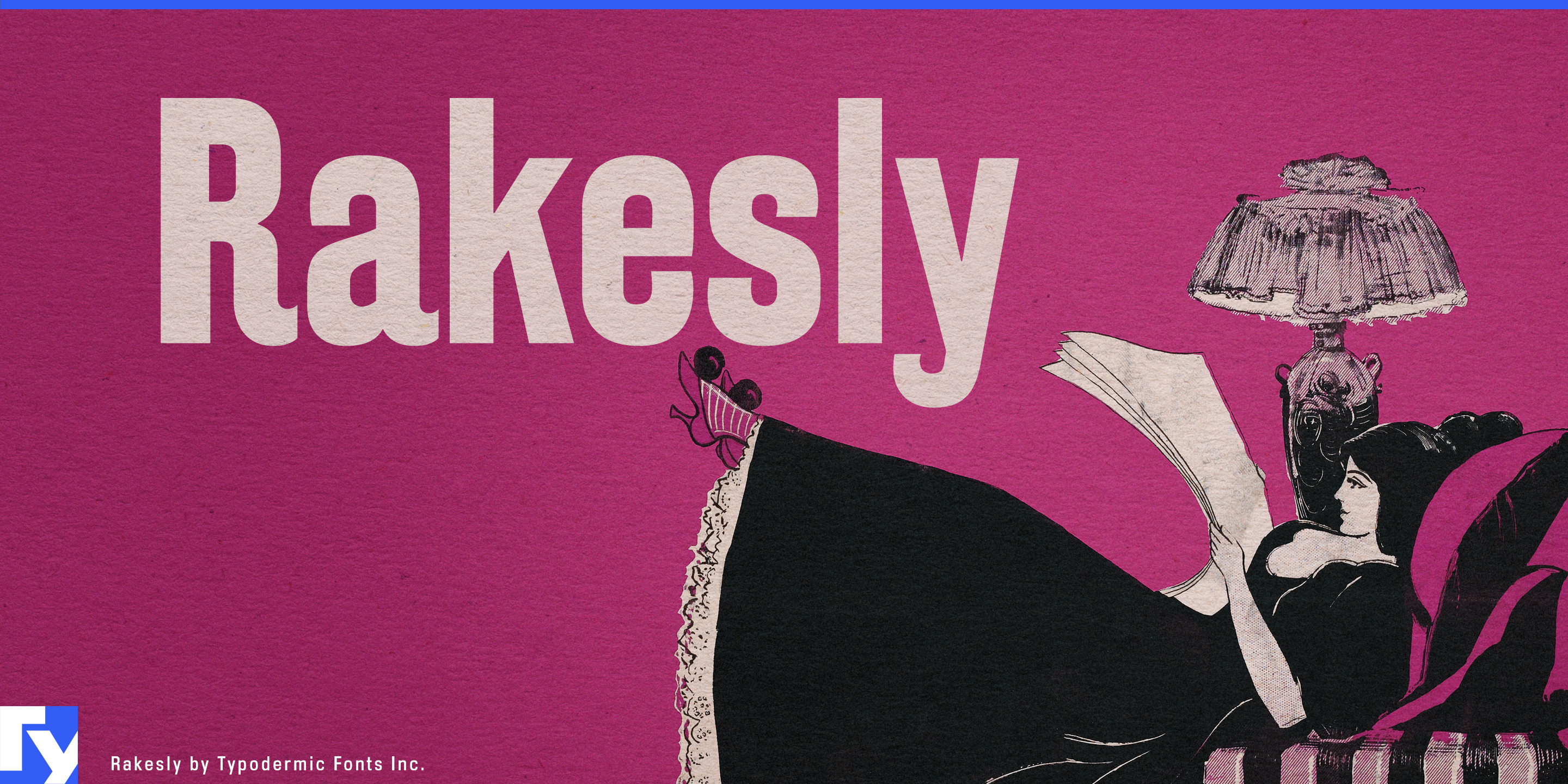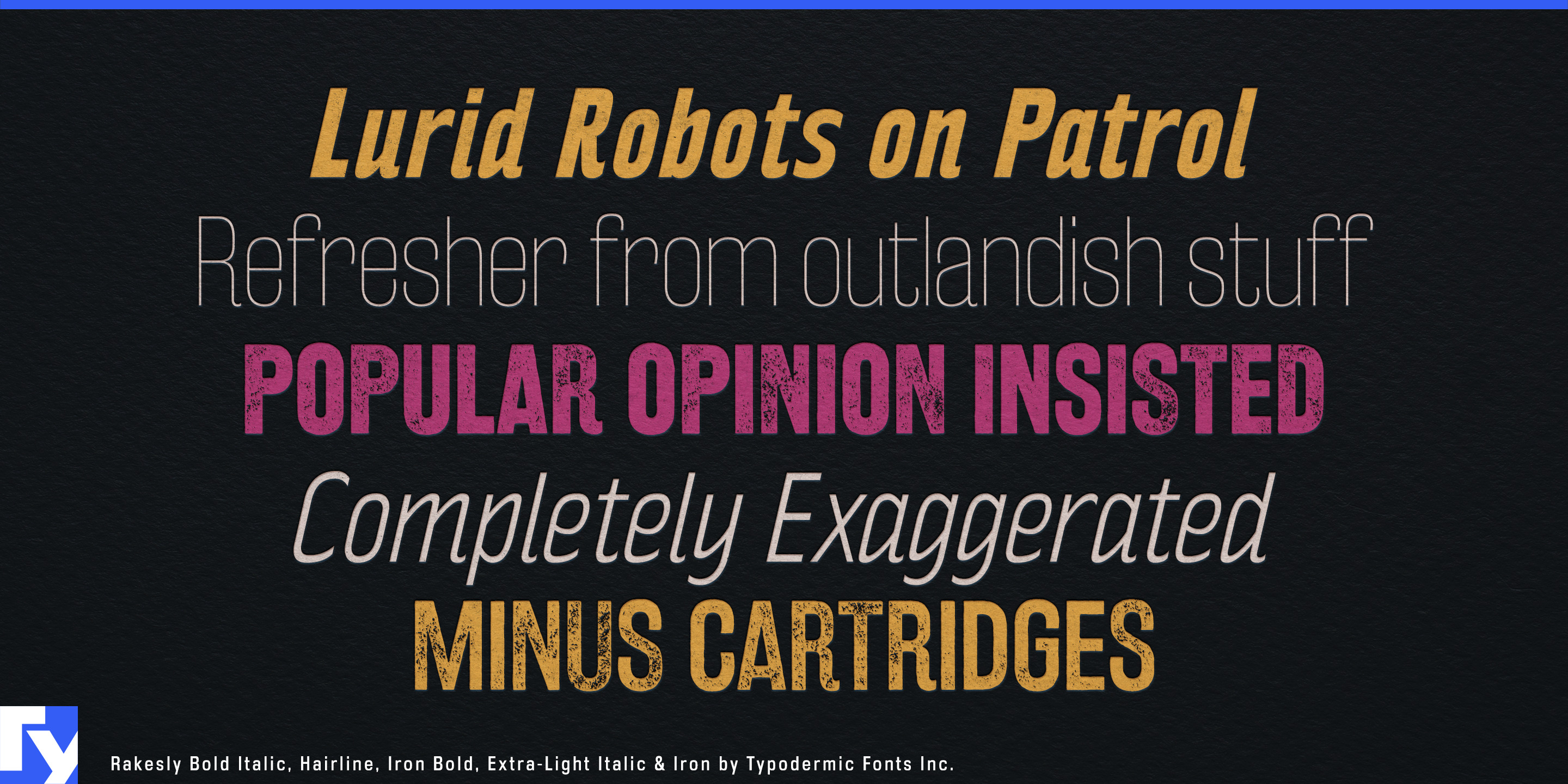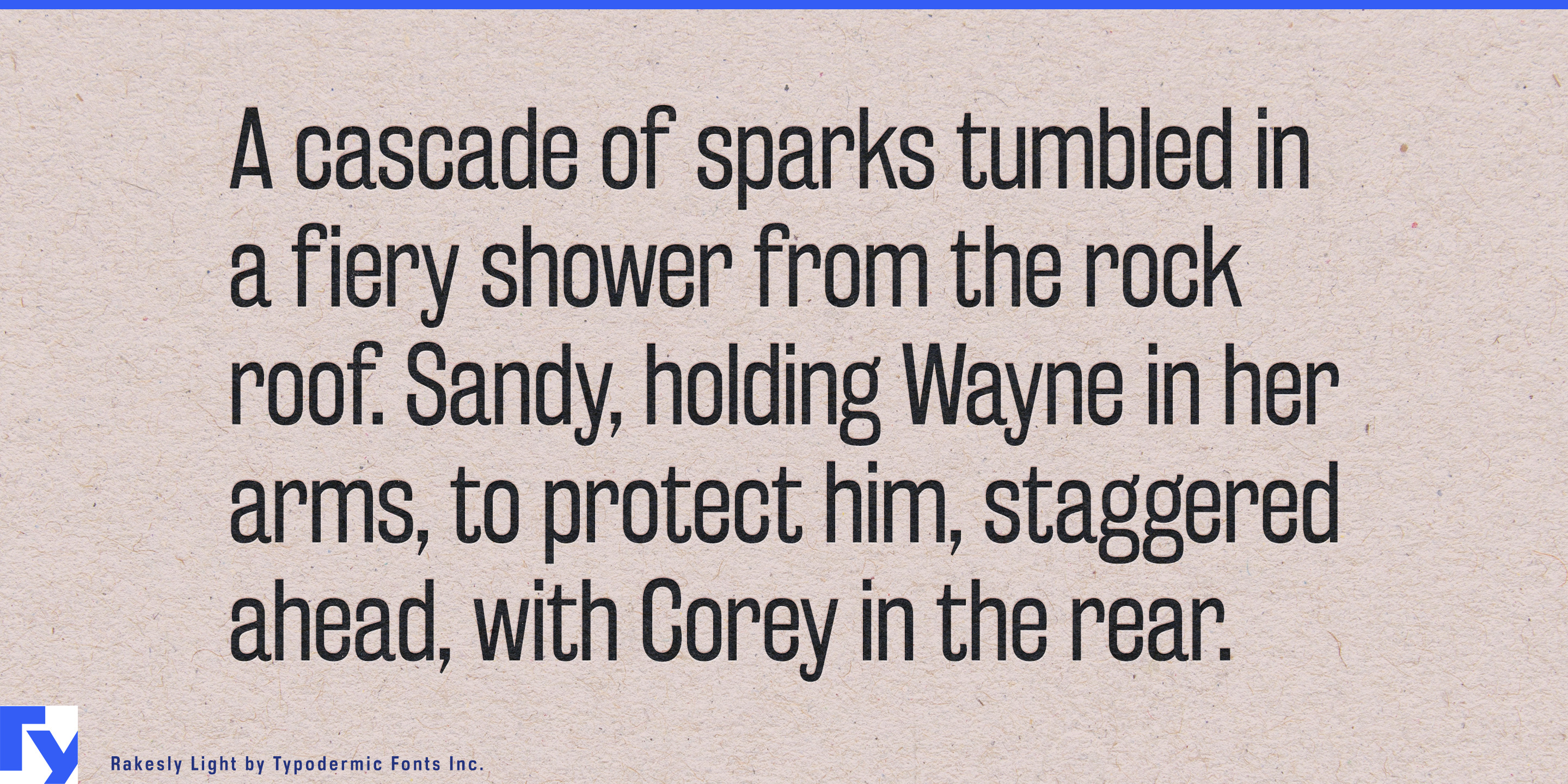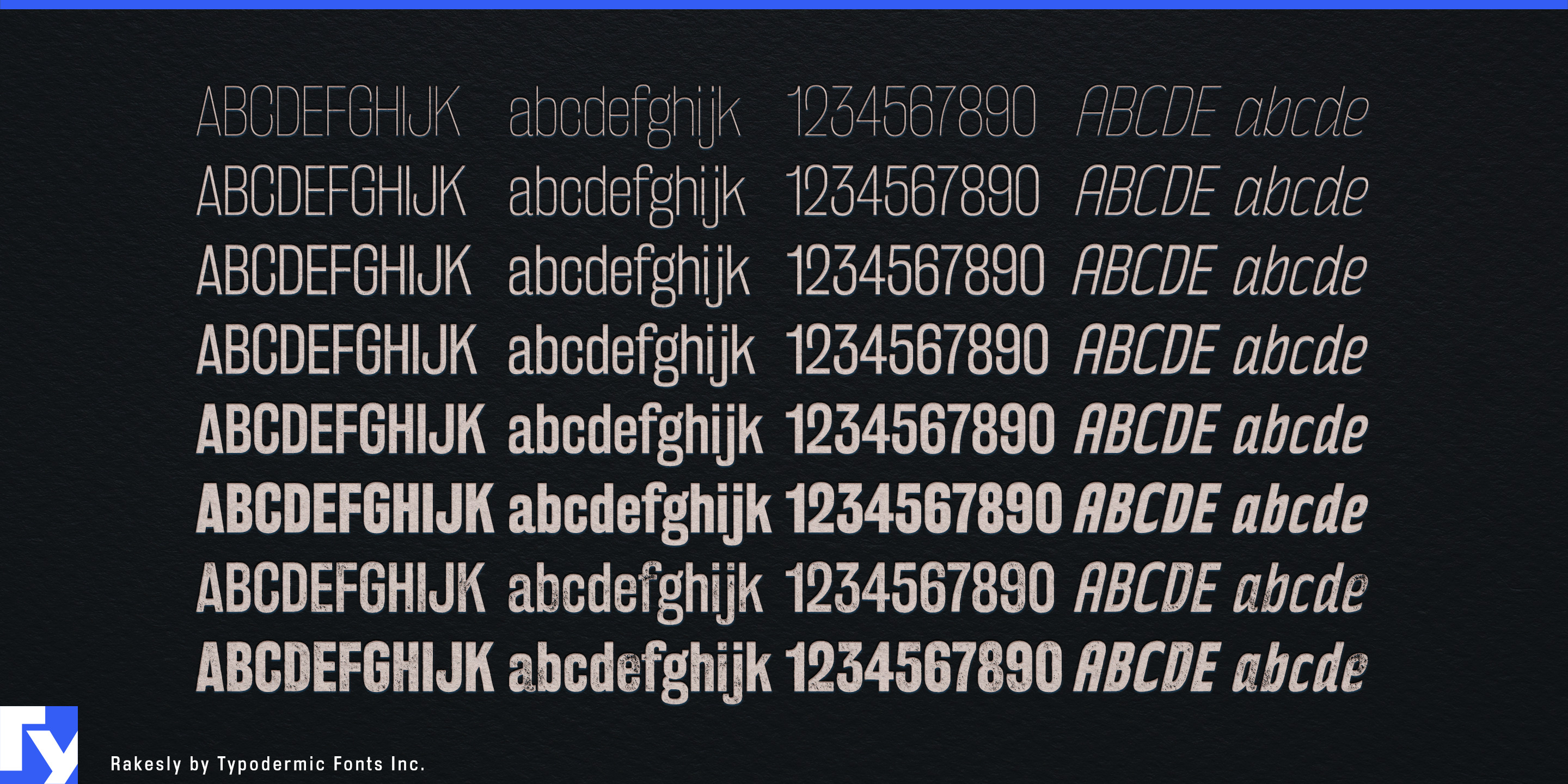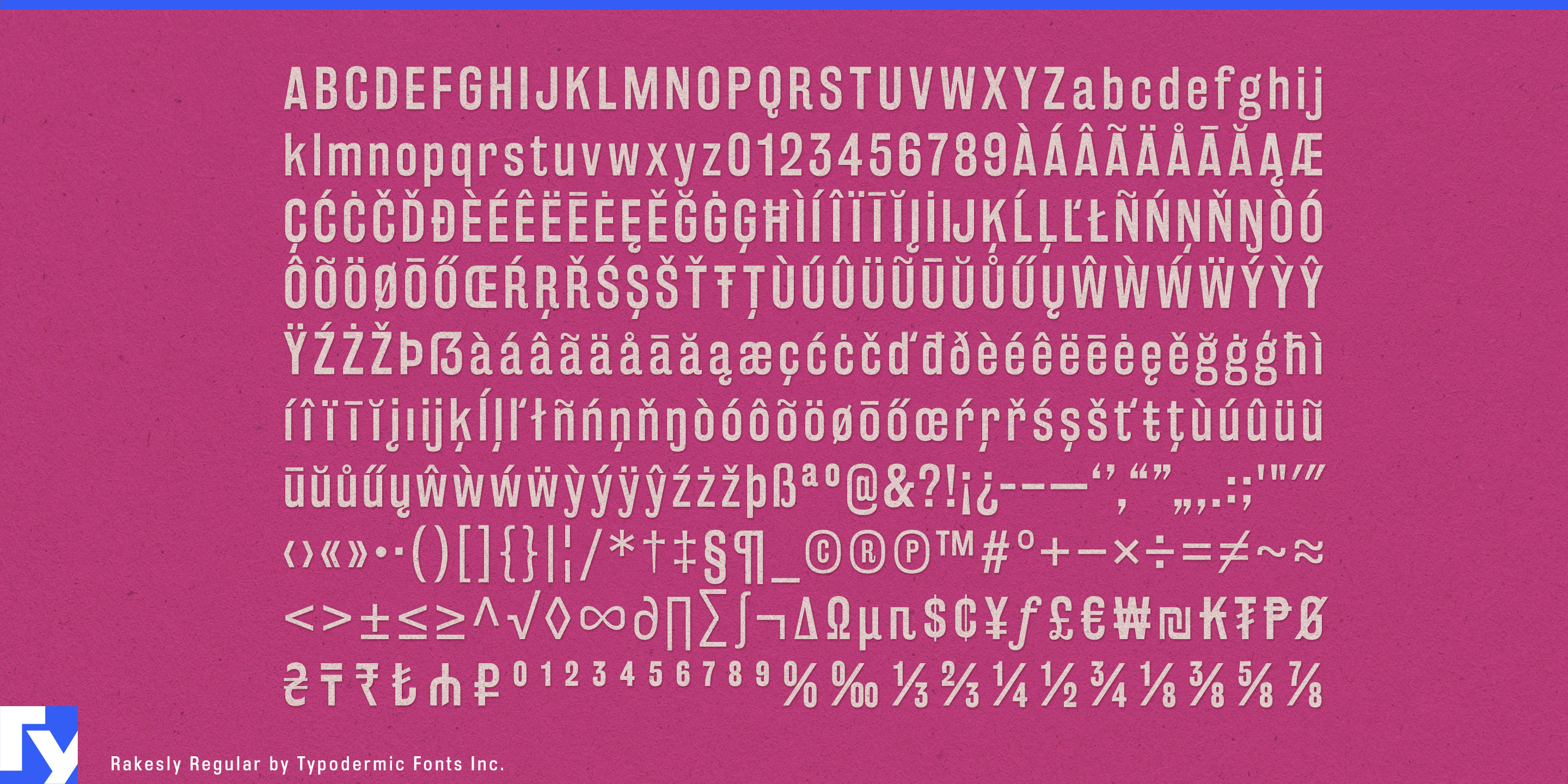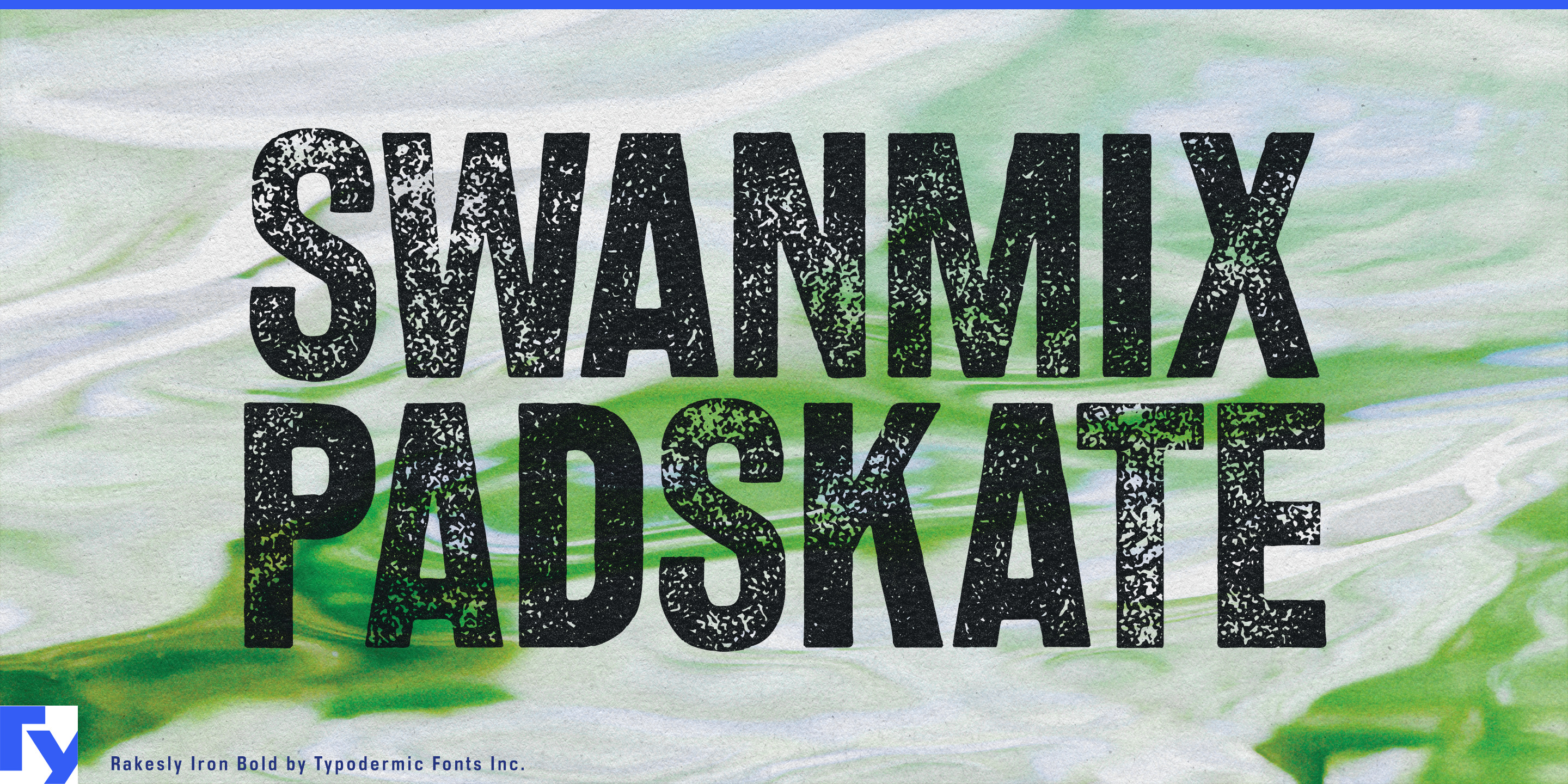
Rakesly
Rakesly is a versatile sans-serif typeface with a distinct sense of history—polished in its core styles, tactile in its textured “Iron” set. The six clean weights and matching italics are rooted in the late nineteenth and early twentieth centuries, drawing on the precision of metal sans-serifs. Upright styles carry a quiet strength; italics lean into subtle Art Deco industrial elegance. Together, they offer a full typographic range for projects that blend heritage and modern clarity.
Then there’s Rakesly Iron: four grain-rich styles—Regular, Italic, Bold, and Bold Italic—that recreate the intricate surface detail of authentic letterpress printing. The texture isn’t a generic overlay; it’s embedded in the letterforms, with variation built in through contextual alternates for a natural, printed look. PUA encoding makes it simple to select alternates manually when a precise texture layout is needed.
From artisanal food and beverage branding to book jackets, editorial spreads, poster design, and signage, Rakesly’s clean and Iron styles can work alone or in combination. Use the main family for clarity and structure; layer in the Iron styles when you want to add atmosphere, warmth, or a hand-worked finish. Full Latin language support and a broad symbol set ensure it’s ready for international work.
Rakesly delivers the contrast of refined sans-serif design and the organic charm of letterpress in one cohesive package—making it a practical choice for designers who want character without sacrificing control.